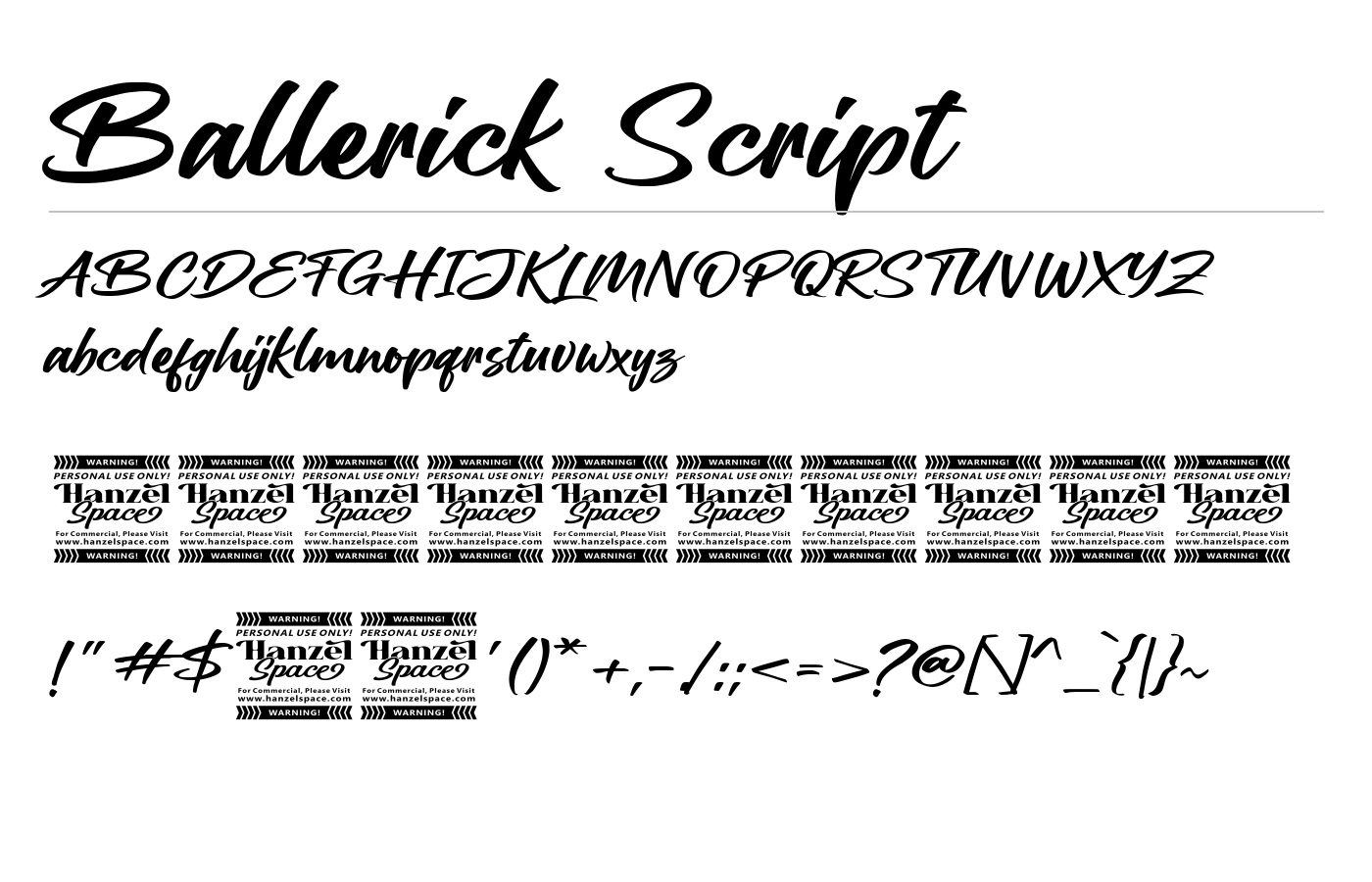
Ballerick Script is a lively and elegant script font featuring smooth, flowing strokes and a casual yet refined style. With its medium weight and moderate contrast, it offers excellent readability while maintaining a hand-lettered charm, making it perfect for invitations, branding, and creative projects seeking a personal, stylish touch. Its dynamic letterforms bring warmth and sophistication, ideal for adding a friendly and sophisticated vibe to headlines, logos, and packaging.
Ballerick Script Font
About Ballerick Script Font
| Font family | Ballerick Script Font |
| Designer | Hanief Farandi |